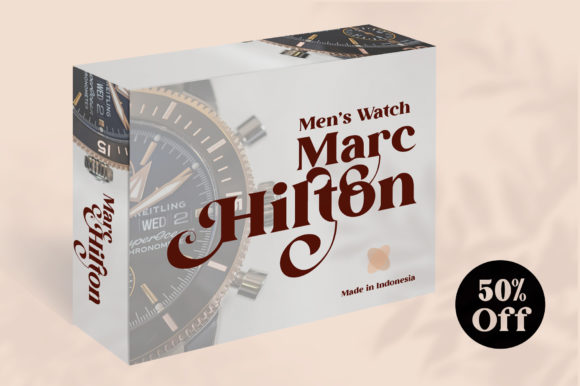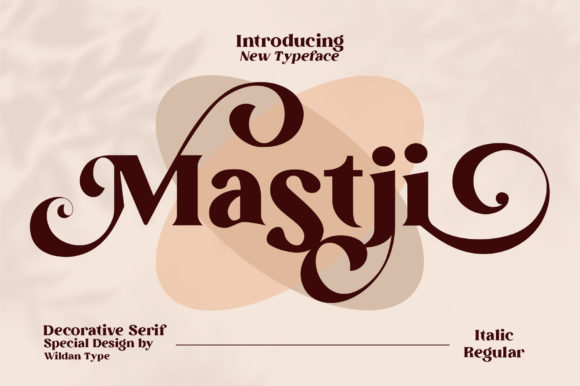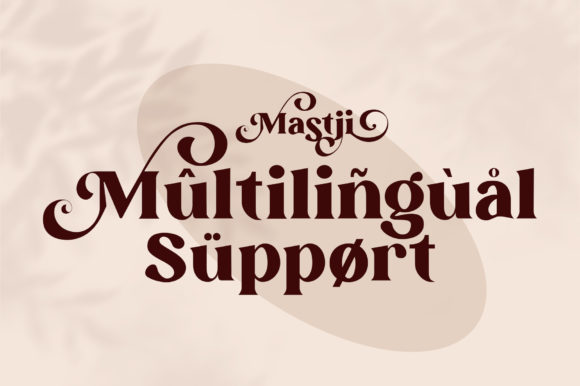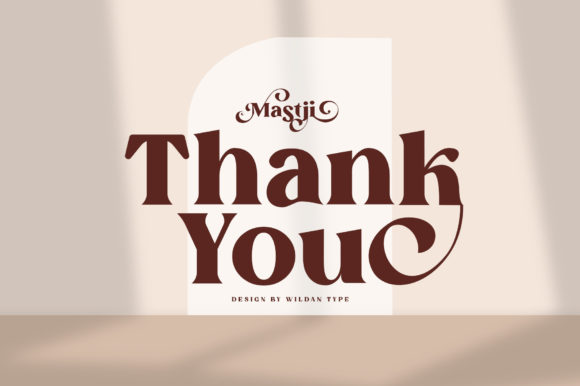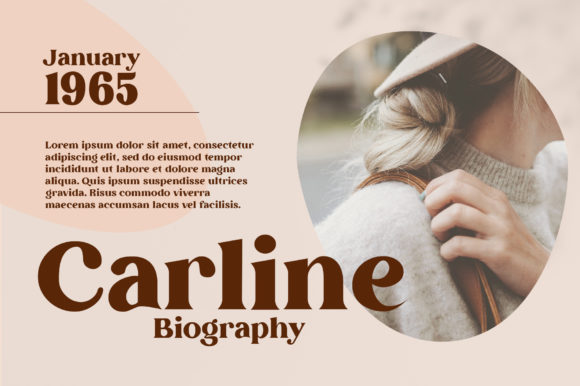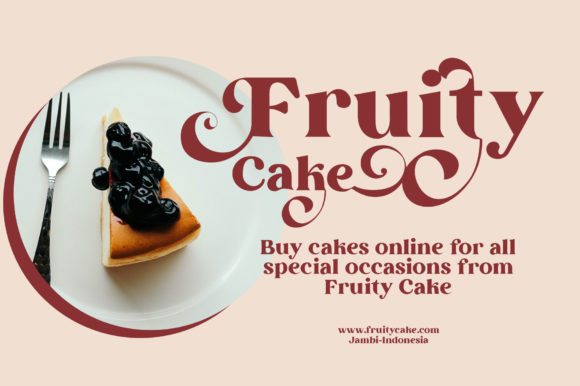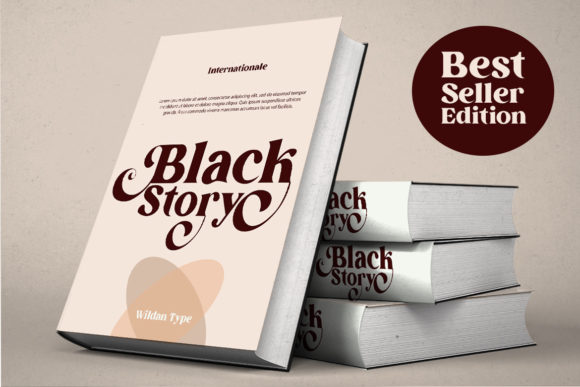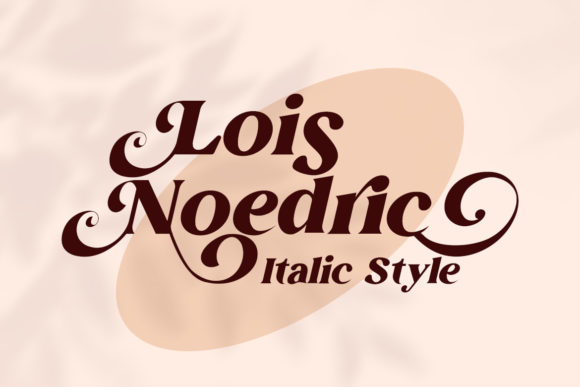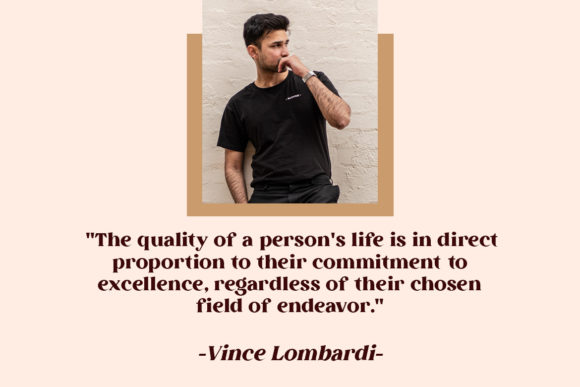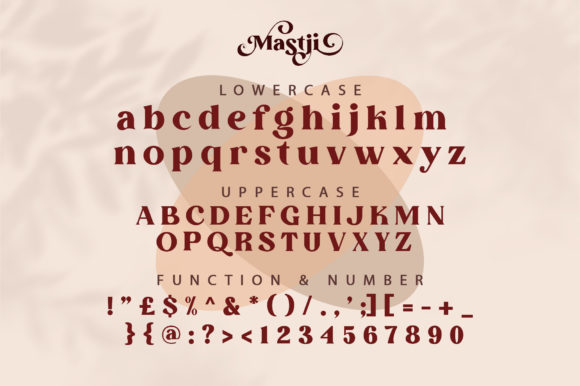
Mastji Font
MASTJI FONT SPECIMEN
Introducing Mastji, an elegant and sophisticated slab serif font that exudes timeless charm and sophistication. Designed to elevate your creative projects, Mastji is the perfect choice for expensive branding and similar endeavors that require a touch of luxury. By adding Mastji to your most creative ideas, you’ll witness how it breathes life into them, creating captivating visuals.
Mastji’s elegant and sophisticated nature sets it apart as a font that exudes refinement and class. Its meticulously designed letterforms showcase a perfect balance of elegance and readability, making it an ideal choice for expensive branding projects. Whether you’re creating a high-end logo, packaging for luxury goods, or premium marketing materials, Mastji enhances the perception of quality and exclusivity.
In addition to branding, Mastji’s elegance and sophistication make it a versatile font for various creative projects. From editorial layouts to wedding invitations, Mastji brings an air of sophistication and beauty to the forefront. Its clean lines and tasteful details ensure that your designs exude timeless elegance and make a lasting impression.
One of the standout features of Mastji is its PUA encoding, which grants easy access to all the glyphs and swashes. This feature provides you with endless possibilities to customize and personalize your designs, allowing you to effortlessly incorporate decorative elements and flourishes to enhance the overall aesthetic.
Mastji’s versatility extends to a wide range of creative ideas. Whether it’s on websites, advertisements, product packaging, signage, or any other medium, this font elevates the visual impact and adds a touch of sophistication. It helps communicate a sense of prestige and exclusivity, captivating audiences and leaving a lasting impression.
In summary, Mastji is an elegant and sophisticated slab serif font that enhances the luxury and refinement of your creative projects. Its suitability for expensive branding and similar endeavors makes it an excellent choice for projects that demand a touch of elegance and sophistication. Let Mastji be your creative companion, and witness how it brings your most imaginative ideas to life with grace and allure.